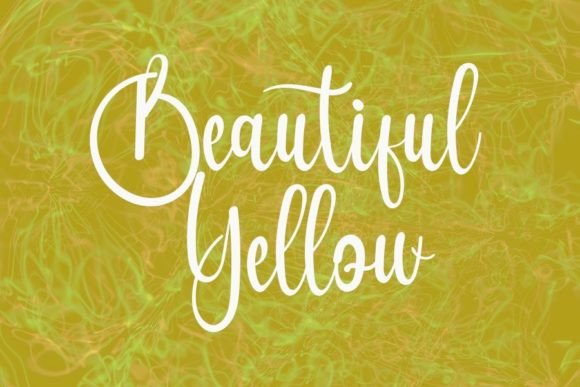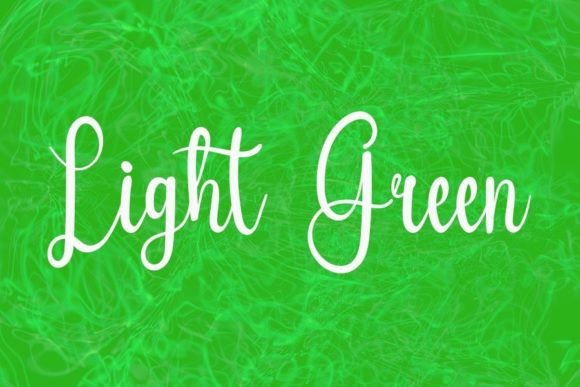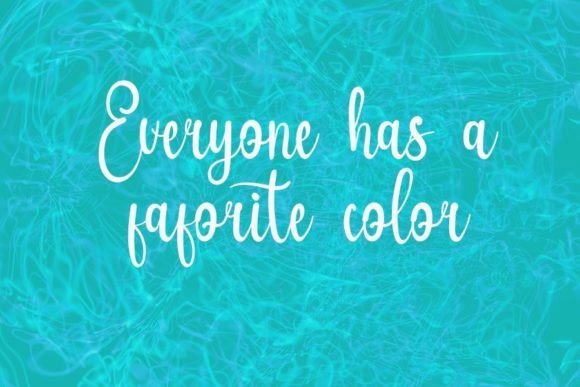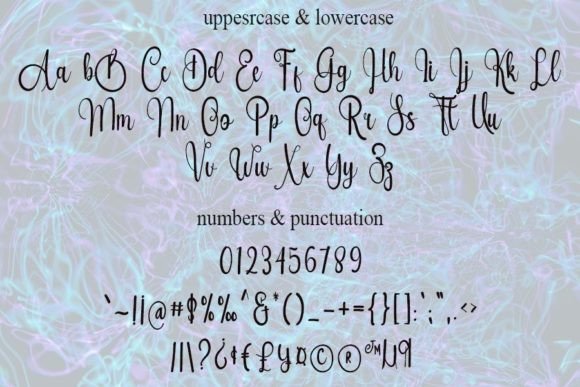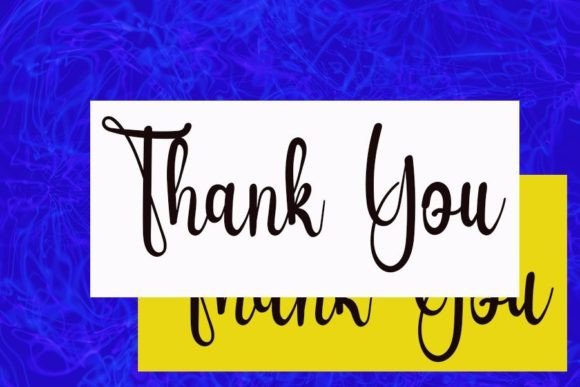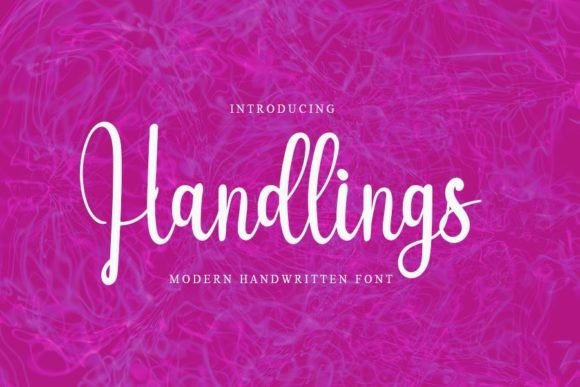
Introducing Handlings Font: The Sweet and Delicate Handwritten Font for Romantic Designs
Are you a designer or crafter looking for a font that can add a touch of romance and personality to your designs? Look no further than Handlings Font! This beautiful, handwritten font is perfect for creating wedding invitations, cards, and other designs that require a delicate and joyful touch.
What is Handlings Font?
Handlings Font is a sweet and delicate handwritten font that is designed to bring a touch of elegance and sophistication to your designs. Its dainty and joyful characters make it ideal for creating romantic and personalized designs that will leave a lasting impression on your audience.
Key Features of Handlings Font
- Handwritten style: Handlings Font has a beautiful, handwritten style that gives it a personal and unique touch.
- Dainty and joyful characters: The font features dainty and joyful characters that are perfect for creating romantic and playful designs.
- Romantic and personalized: Handlings Font is designed to add a touch of romance and personality to your designs, making it perfect for wedding invitations, cards, and other special occasions.
- Easy to read: Despite its delicate style, Handlings Font is easy to read and understand, making it perfect for body text and headings.
Uses of Handlings Font
Handlings Font is a versatile font that can be used for a variety of design projects, including:
- Wedding invitations: The font’s romantic and delicate style makes it perfect for creating beautiful wedding invitations that will set the tone for your special day.
- Cards and stationery: Handlings Font is ideal for creating personalized cards and stationery that will add a touch of elegance and sophistication to your correspondence.
- Branding and packaging: The font’s unique and playful style makes it perfect for branding and packaging designs that require a personal touch.
- Digital designs: Handlings Font can be used for digital designs, such as social media graphics, blog posts, and website headers.
Tips for Using Handlings Font
Here are some tips for using Handlings Font in your designs:
- Use it sparingly: Handlings Font is a delicate font that works best when used sparingly. Use it for headings, titles, or special text, and pair it with a simpler font for body text.
- Experiment with colors: The font’s playful style makes it perfect for experimenting with different colors and textures. Try pairing it with pastel colors, watercolor textures, or metallic effects.
- Add embellishments: Handlings Font can be paired with embellishments, such as flowers, hearts, or stars, to add a touch of whimsy and romance to your designs.
Handlings Font is a beautiful, handwritten font that is perfect for designers and crafters looking to add a touch of romance and personality to their designs. Its delicate and joyful characters make it ideal for creating wedding invitations, cards, and other special occasions. With its versatility and ease of use, Handlings Font is a must-have font for any designer or crafter looking to create unique and memorable designs.